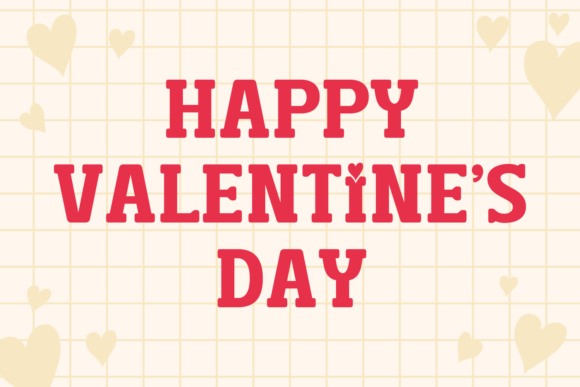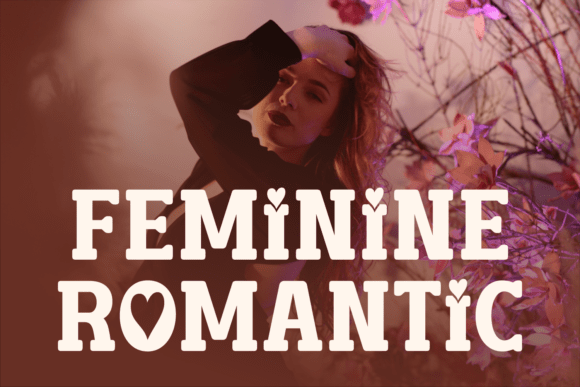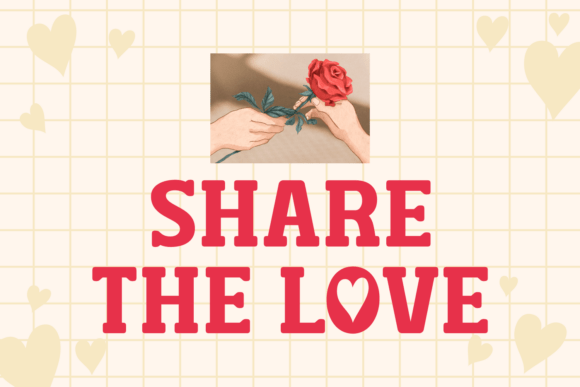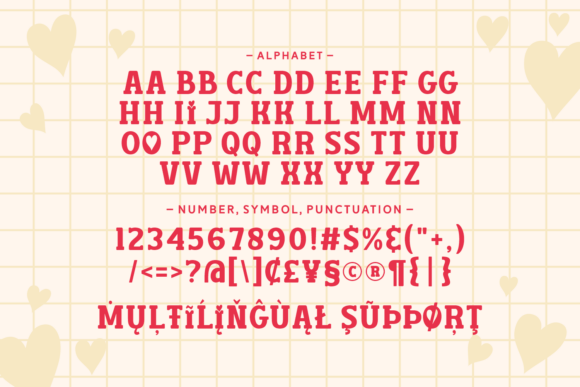
Introduction to Lovevia Font
As a designer, you’ve likely found yourself staring at a blank canvas, desperately searching for the perfect font to bring your creative project to life. Perhaps you’re working on a Valentine’s Day marketing campaign, and you need a font that screams “love” in the most playful and romantic way possible. Or maybe you’re designing a children’s toy packaging, and you want a font that exudes warmth and friendliness. Whatever your project may be, I’m excited to introduce you to the Lovevia Font – a game-changing design resource that’s sure to capture hearts and spark creativity.
Designed with a bold, energetic, and heavy-weight slab serif aesthetic, the Lovevia Font is more than just a pretty face. Its thick, blocky characters and rounded corners give it a solid presence that’s both friendly and authoritative. And let’s not forget the unique “heart” cut-outs integrated directly into the letterforms – a delightful touch that adds a personal, handmade feel to your designs. With its high-quality design and transparent background, the Lovevia Font is the perfect choice for any creative project that requires a bold, cheerful, and “made with love” aesthetic.
Key Features of Lovevia Font
- High-quality design resource: The Lovevia Font is a beautifully crafted, professional font that can elevate any creative project.
- Unique characteristics: The Lovevia Font features a unique, hand-drawn style that adds a touch of personality to any creative project.
Honest Review: Lovevia Font
I recently stumbled upon the Lovevia Font and I must say it’s been a game-changer for my creative projects. As a designer, I’m always on the lookout for high-quality design resources that can elevate my work. This font has exceeded my expectations in every way.
- ✨ Beautiful, elegant design that’s perfect for romantic or whimsical projects
- ✨ High-quality font that’s crisp and clear, even at small sizes
- ✨ Transparent background, making it easy to layer with other design elements
- ⚠️ Limited character set, which may not be suitable for extended text blocks
- ⚠️ May not be as versatile as some other fonts, due to its elegant and ornate design
Overall, I’m thoroughly impressed with the Lovevia Font. It’s a fantastic addition to any designer’s toolkit, and I’ve already used it in several projects with great results. If you’re looking for a high-quality, elegant font for your creative project, I highly recommend giving the Lovevia Font a try.
Tips for Getting the Most Out of Lovevia Font
For a creative project, use the Lovevia Font in combination with other design elements, such as images and graphics, to create a visually appealing design. Experiment with different font sizes and colors to achieve the desired effect.
The Lovevia Font is suitable for various design projects, including wedding invitations, birthday cards, and social media graphics. It’s also a great choice for creating a free download design resource, such as a printable art or a digital journal.
Alternatives to Lovevia Font
Pacifico is a high-quality, elegant script font ideal for creative projects requiring a sophisticated and luxurious feel. It’s perfect for designing wedding invitations, branding materials, and other design elements that demand a touch of class.
Compared to Lovevia Font, Pacifico offers a more refined and delicate look, making it suitable for projects where a subtle, handwritten feel is desired.